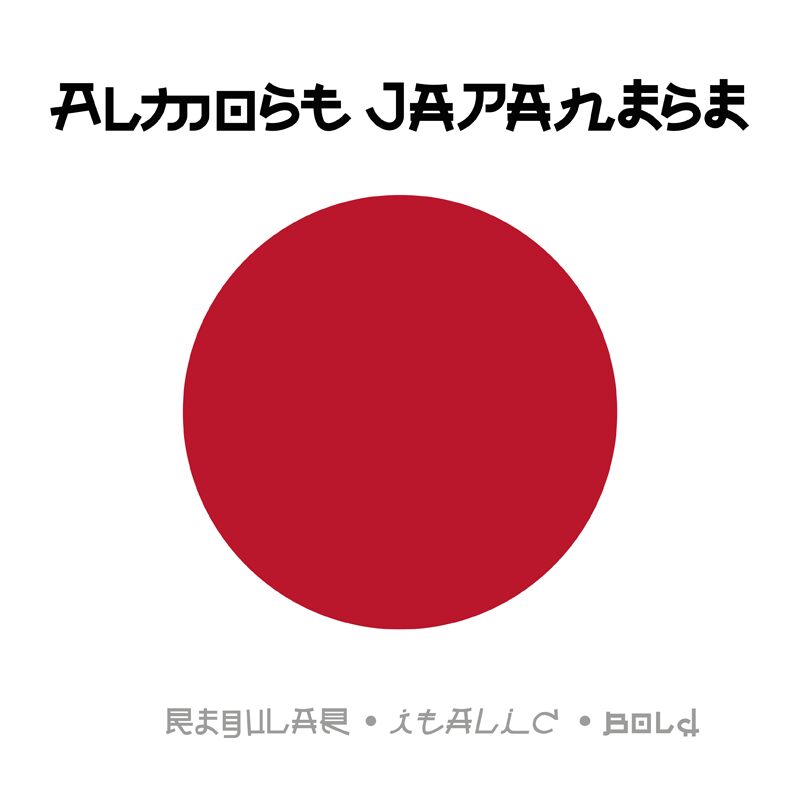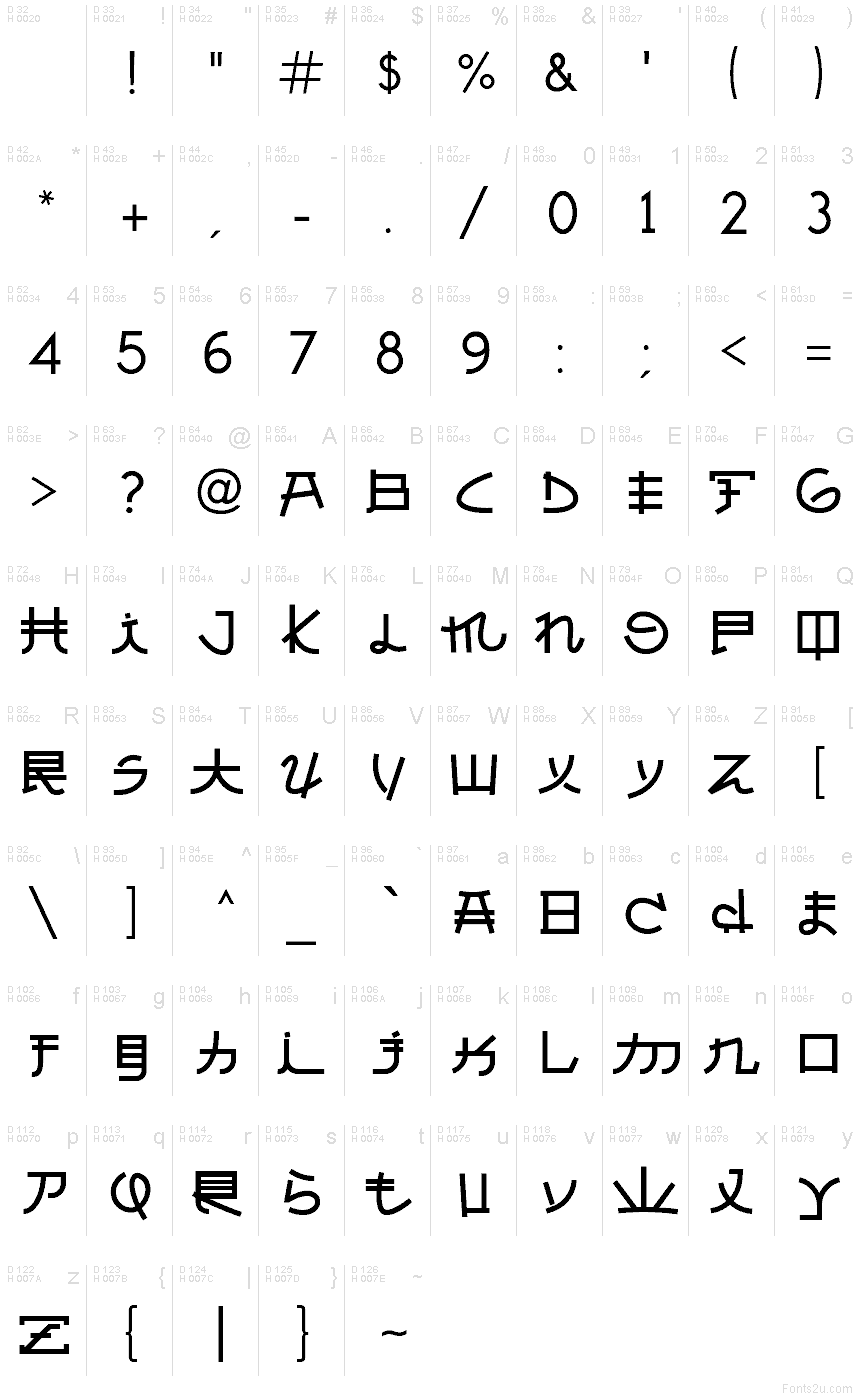
Almost Japanese Regular
Almost Japanese font by Galdino Otten Fonts is a free faux Japanese display font. Built from crisp, monoline strokes with squared turns and clipped diagonals, it fakes a brush-made rhythm without getting messy. The glyphs lock into a tight horizontal flow, creating that signboard snap—chunky, high-contrast shapes that read quickly at a glance and feel a touch “chisel-cut.”
Using Almost Japanese, you can headline street-food posters, arcade game titles, pop-up event signage, streaming overlays, packaging for bold flavors, and travel blog headers. This free font shines when it’s big and a little spaced out; give it room to breathe. For body copy, pair it with a clean geometric sans to keep the vibe bold but readable.